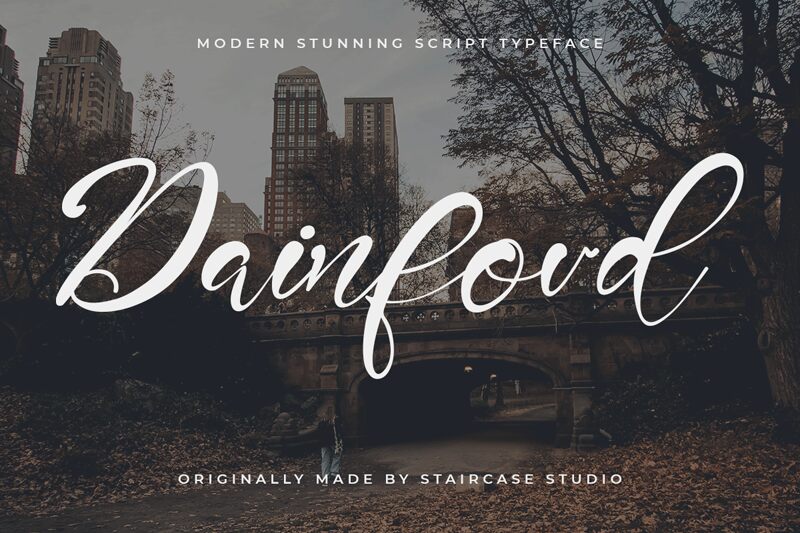
Dainford, the latest creation from Staircase Studio, is a modern script font that exudes elegance and sophistication. With its light weight and flowing curves, Dainford is perfect for projects that require a touch of class. Think wedding invitations, luxury fashion brands or high-end beauty products. This font is versatile enough to be used for both print and digital designs - from logos to social media graphics. Let Dainford elevate your next project with its effortless grace and timeless appeal.
Dainford